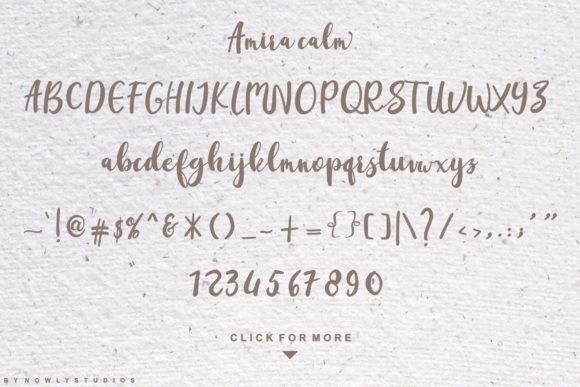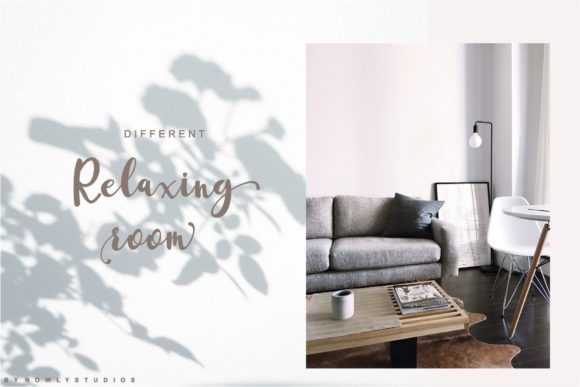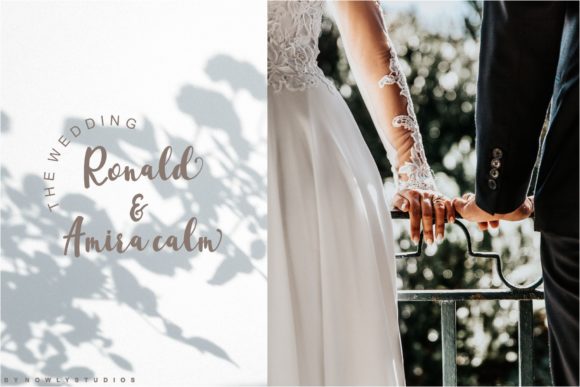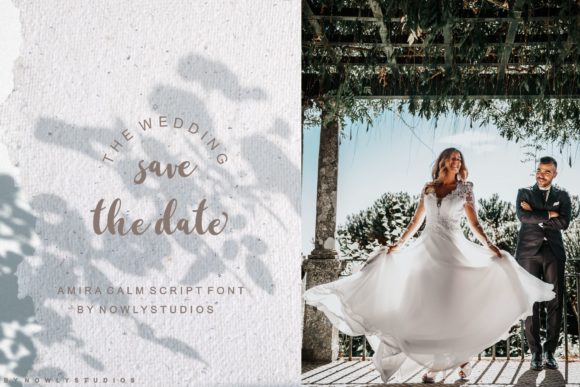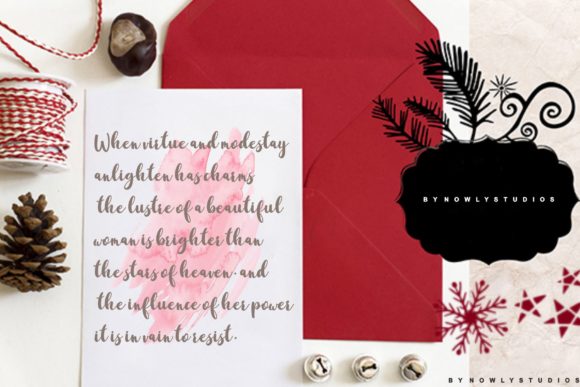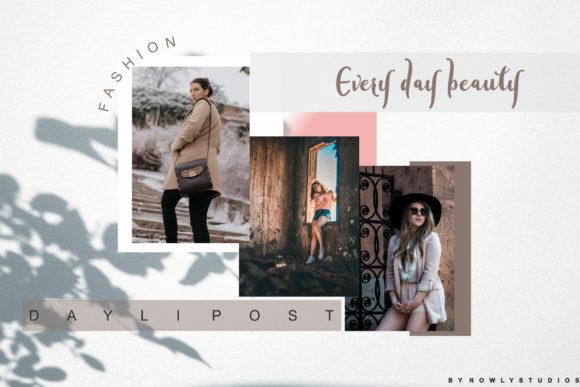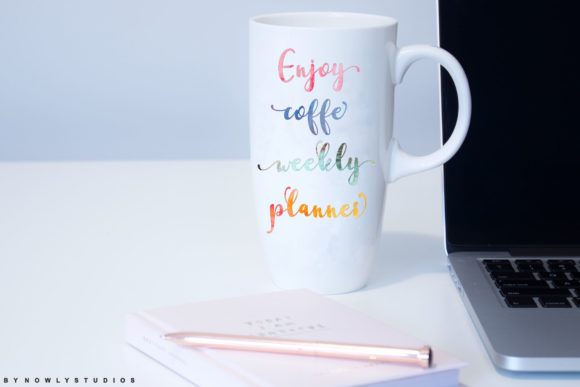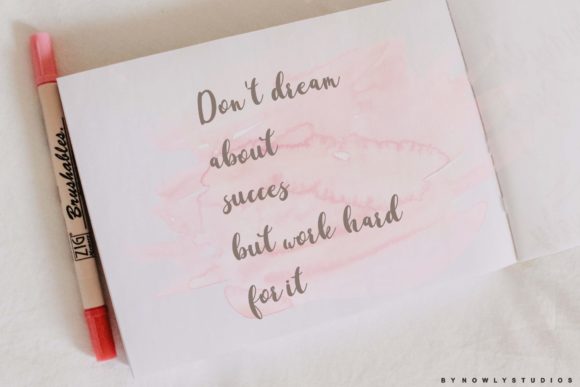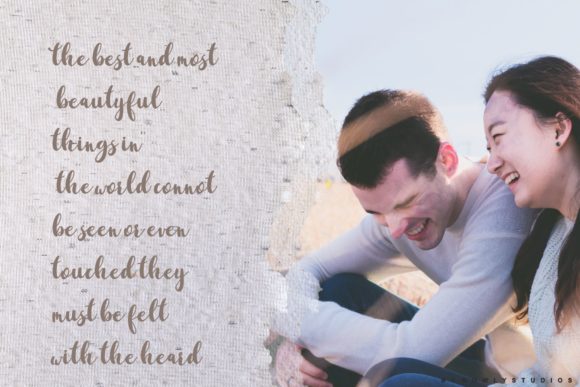
HomeScript FontsAmira Calm Font Script Fonts Amira Calm Font FacebookXPinterestWhatsApp Amira Calm Font Poster 2 Amira Calm Font Poster 3 Amira Calm Font Poster 4 Amira Calm Font Poster 5 Amira Calm Font Poster 6 Amira Calm Font Poster 7 Amira Calm Font Poster 8 Amira Calm Font Poster 9 Amira Calm Font Poster 10 About Amira Calm Font Amira Calm is a cool and relaxed script font with a summery feel. Get inspired by its contemporary style. DOWNLOAD ON CREATIVE FABRICAThis font is sold and delivered by Creative Fabrica. Font Canyon may earn a commission if you buy through this link. People also explored Eksja Font Tropicali Script BTN Filmotype Yukon Sweet Peanuts Font Roster Font Verrona Font Logo Mock-up Pack Stripe Font Cow Moo Font 368 0 TagsAmira Calm Font Previous articleFoustayn FontNext articleBrigitte Font LEAVE A REPLY Cancel reply Comment: Please enter your comment! Name:* Please enter your name here Email:* You have entered an incorrect email address! Please enter your email address here Website: Save my name, email, and website in this browser for the next time I comment. Personal Use Free Soulties Personal Use Free Read more about this font Antaro Personal Use Free Read more about this font Austins Personal Use Free Read more about this font Ontel Personal Use Free Read more about this font BLOG Transform Your Website: Elevate Your Typography with 7 Best Web Font Generators Are you ready to transform your website's typography from ordinary to extraordinary? Great! Today, we're diving into the world of web font generators, which... The 10 Best Handwriting Fonts to Add Personality to Your Designs How to Cut Any Font on Cricut: Convert a Font to SVG (Free) Where to Buy American Fonts Online in 2024